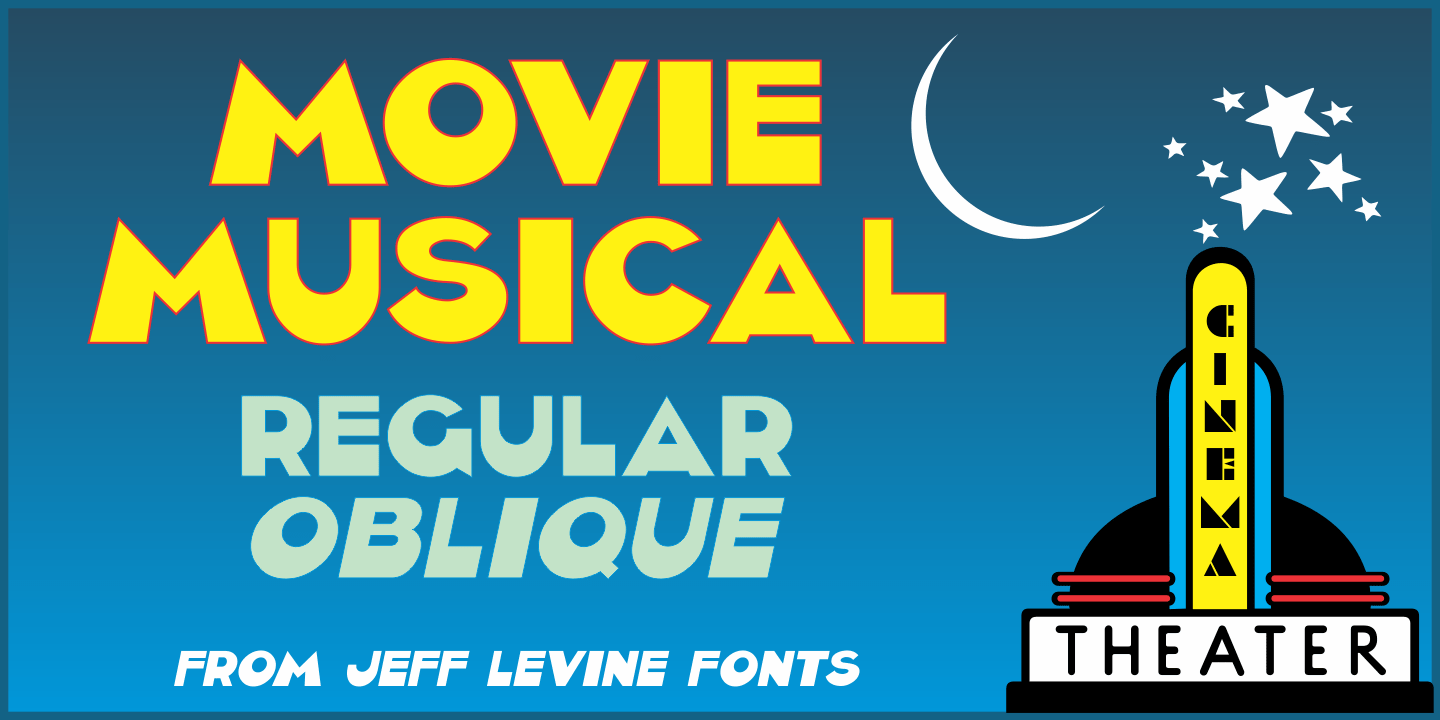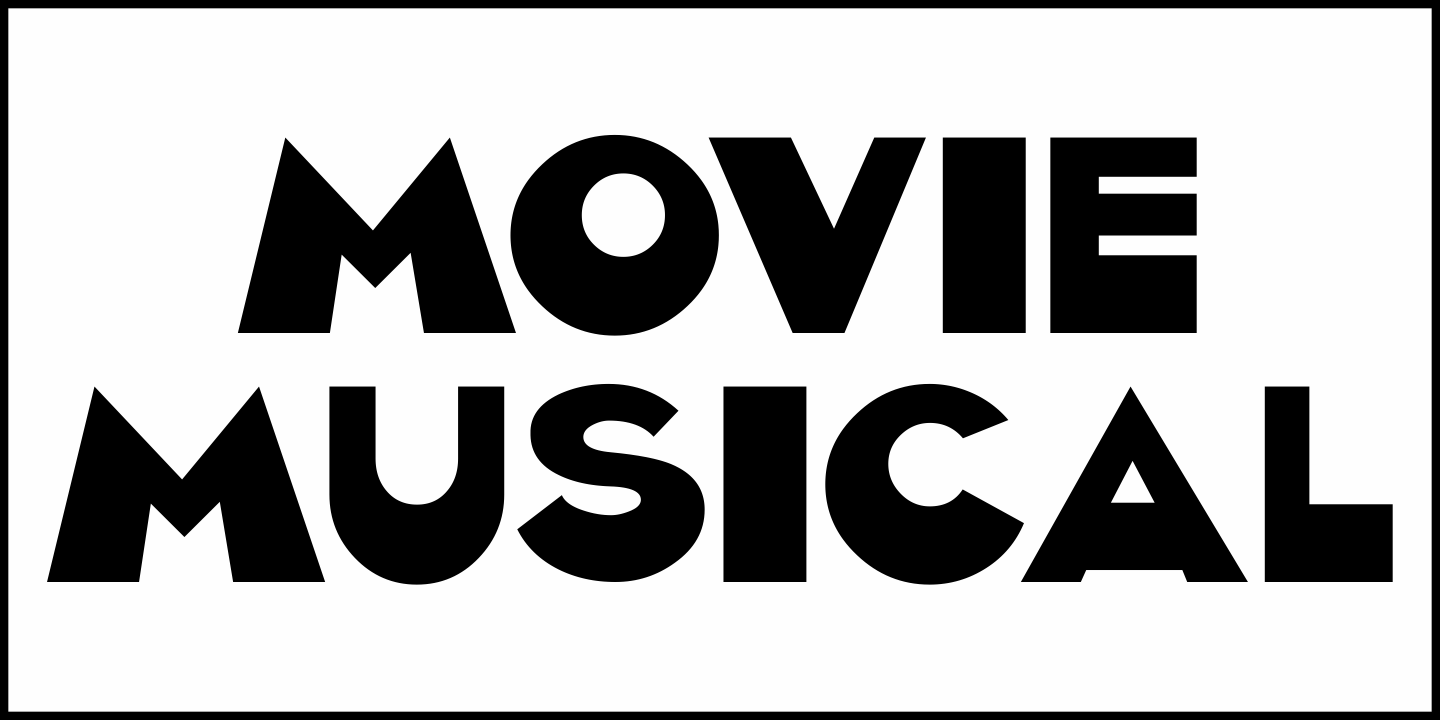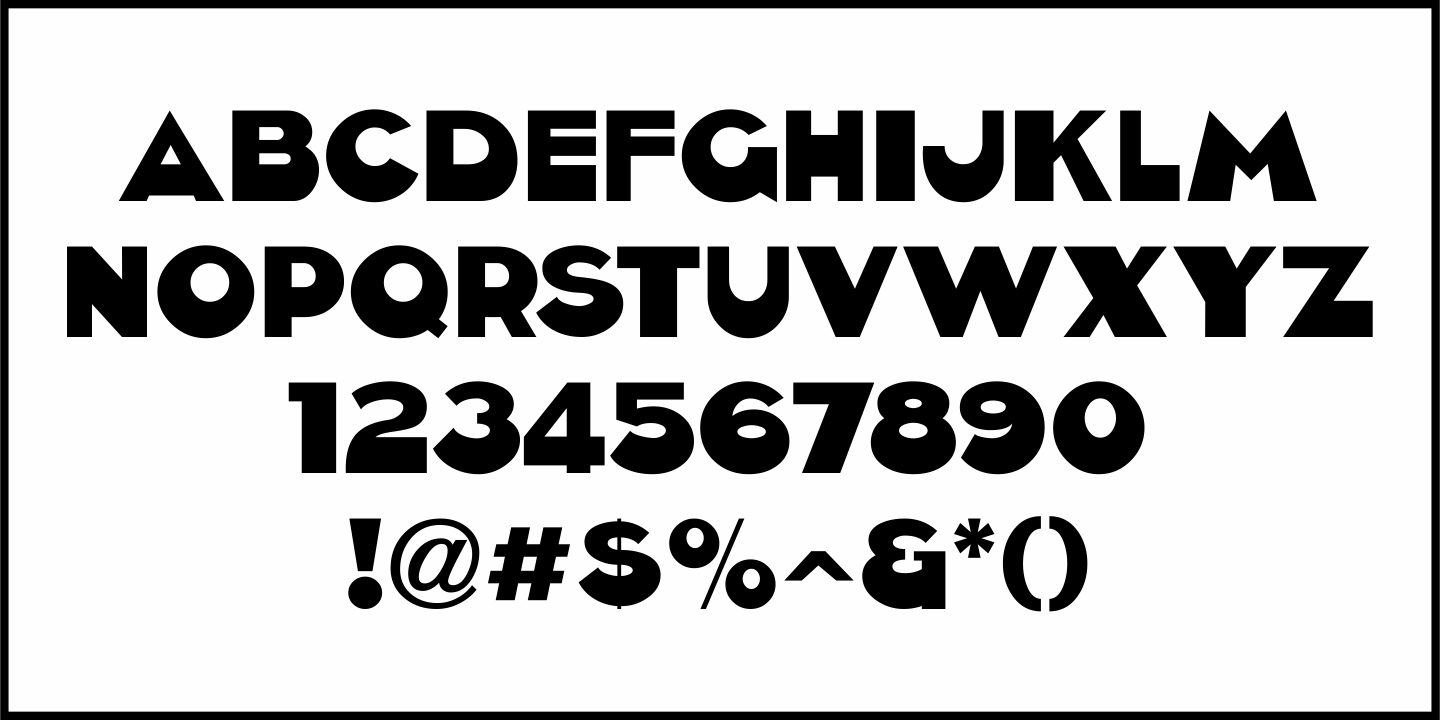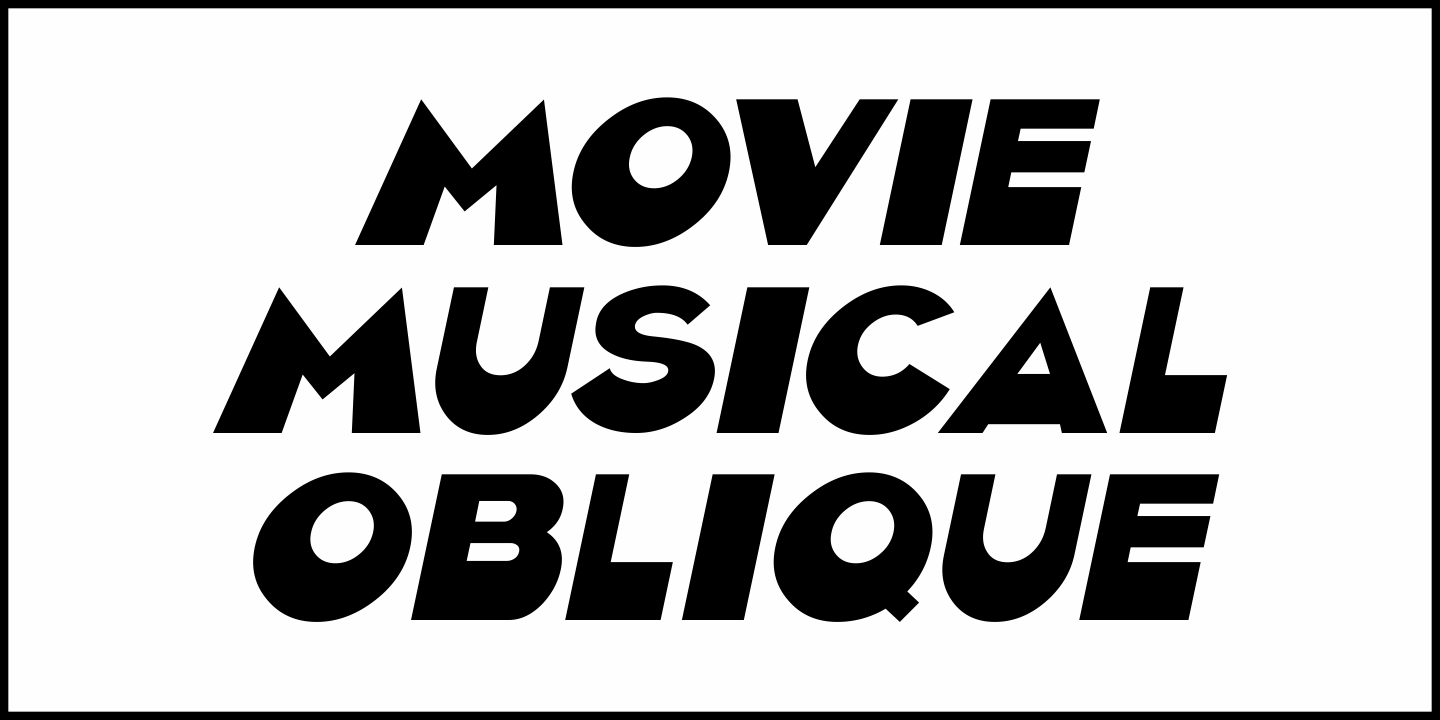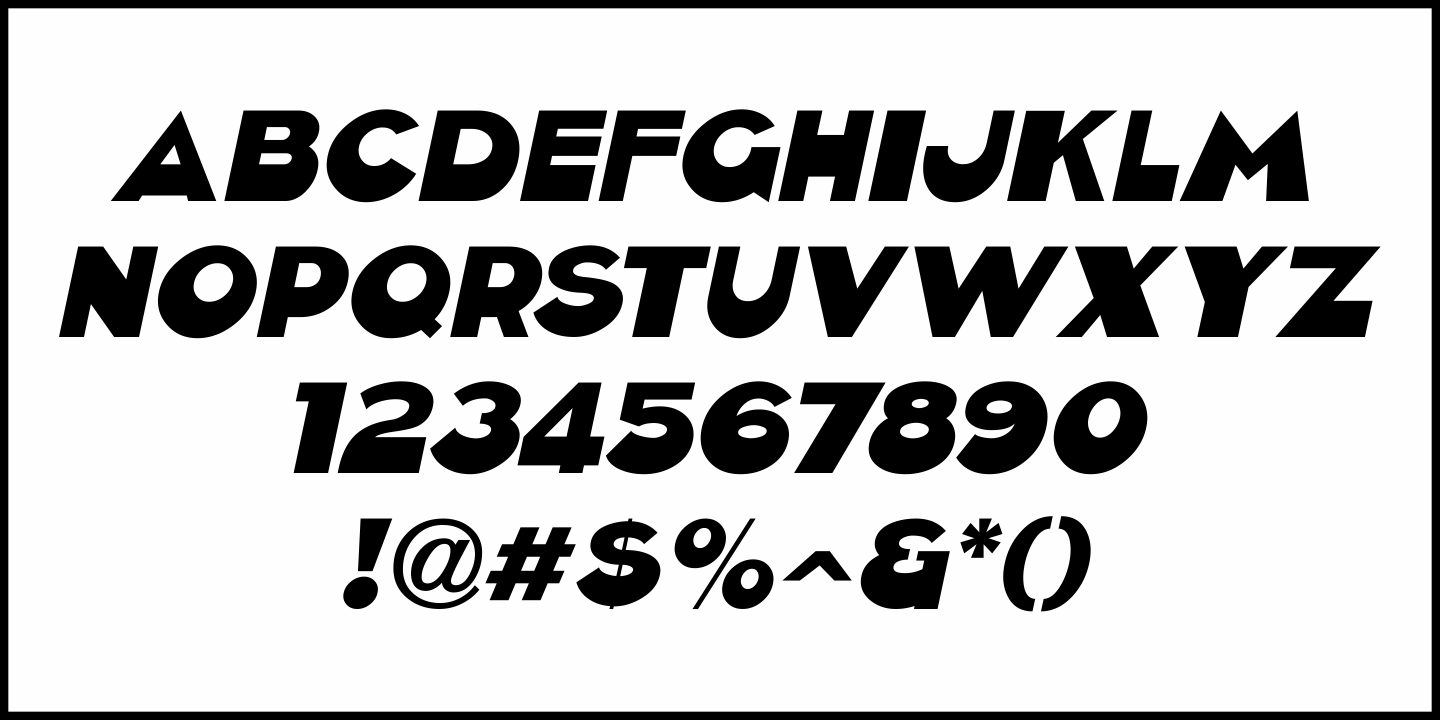
Movie Musical
A lobby card for the 1929 movie musical 'Broadway Melody” features the bulk of the film's title hand lettered in a playful sans serif style.
This design is now available as Movie Musical JNL, which is available in both regular and oblique versions.